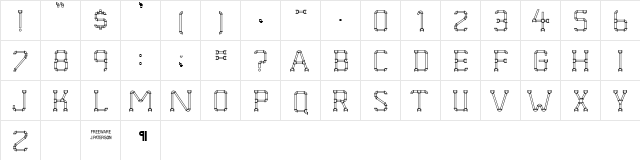
Pipe Dream Normal
Design Context for Pipe Dream Typeface
Pipe Dream is a composed and adaptable typeface that performs quietly and consistently across a wide range of design contexts.